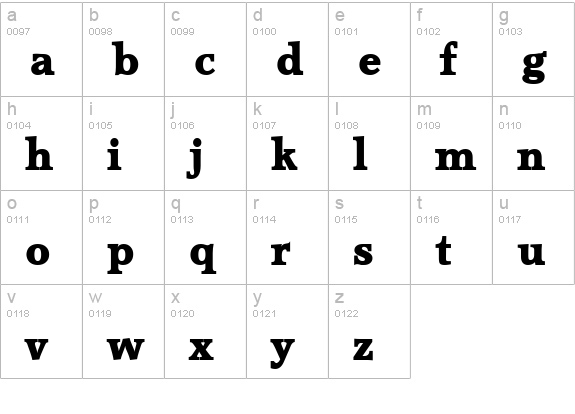
Accord Heavy SF Bold is a heavy, high-impact variant in the Accord typeface family \xE2\x80\x94 well suited to high-impact headlines, posters, and display advertising.
Accord Heavy SF Bold font is a modern and stylish typeface that exudes strength and confidence. Its bold and robust design makes it perfect for headlines, titles, and other prominent text elements. The thick strokes and sharp edges of this font make it stand out and command attention on any design project. The best part about Accord Heavy SF Bold font is that it is free to download at FontsMarket.com. This means you can easily access and use this striking font in your creative projects without any cost. Whether you're designing posters, banners, logos, or any other visual content, Accord Heavy SF Bold font will elevate your work with its bold and impactful presence. Don't miss out on this fantastic opportunity to enhance your designs with the striking Accord Heavy SF Bold font, available for free download at FontsMarket.com. Let your creativity shine with this impressive typeface that will make your text pop and leave a lasting impression on your audience.